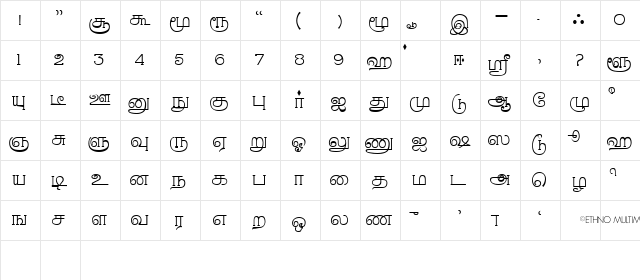
Complete Rasigapriya Plain glyph index. Displaying only characters natively supported by Rasigapriya Plain font.
Rasigapriya is a composed and adaptable typeface that performs quietly and consistently across a wide range of design contexts.